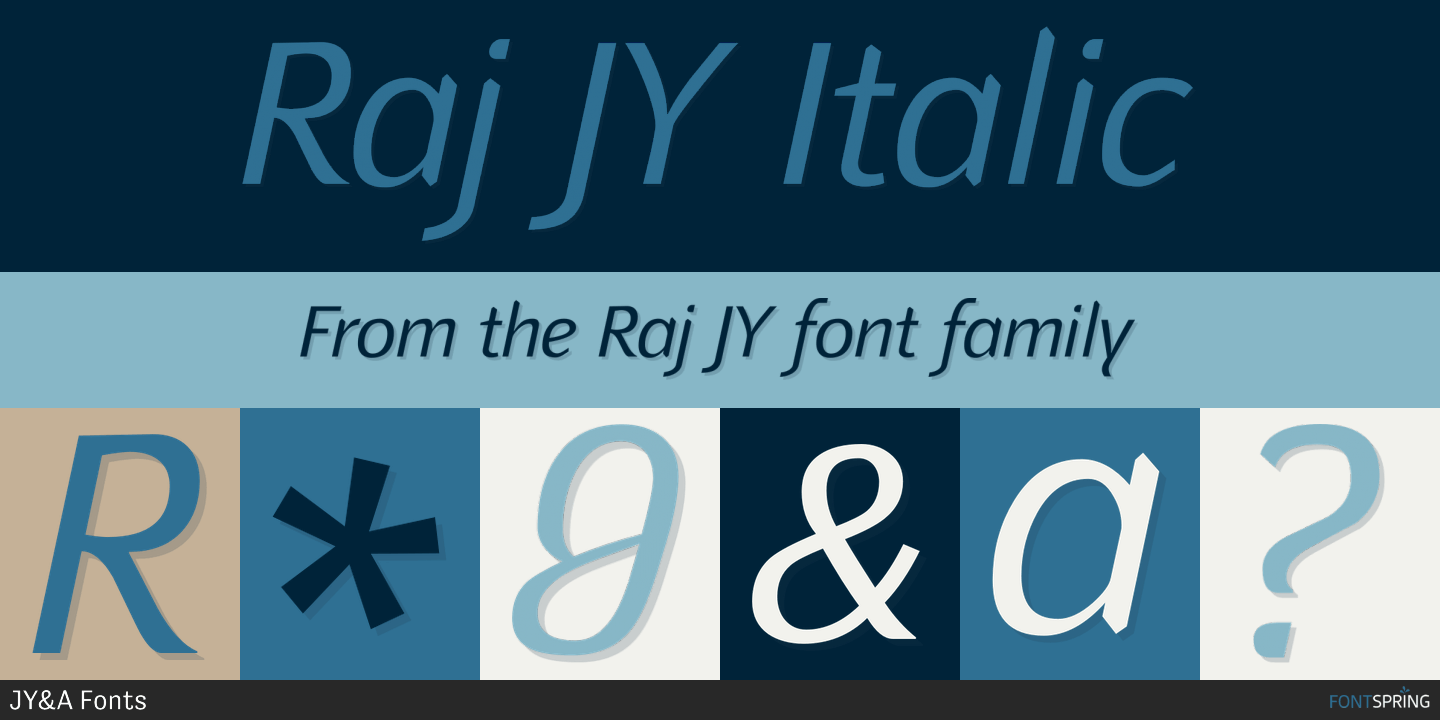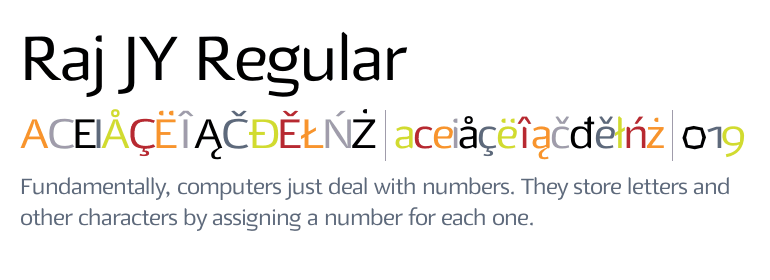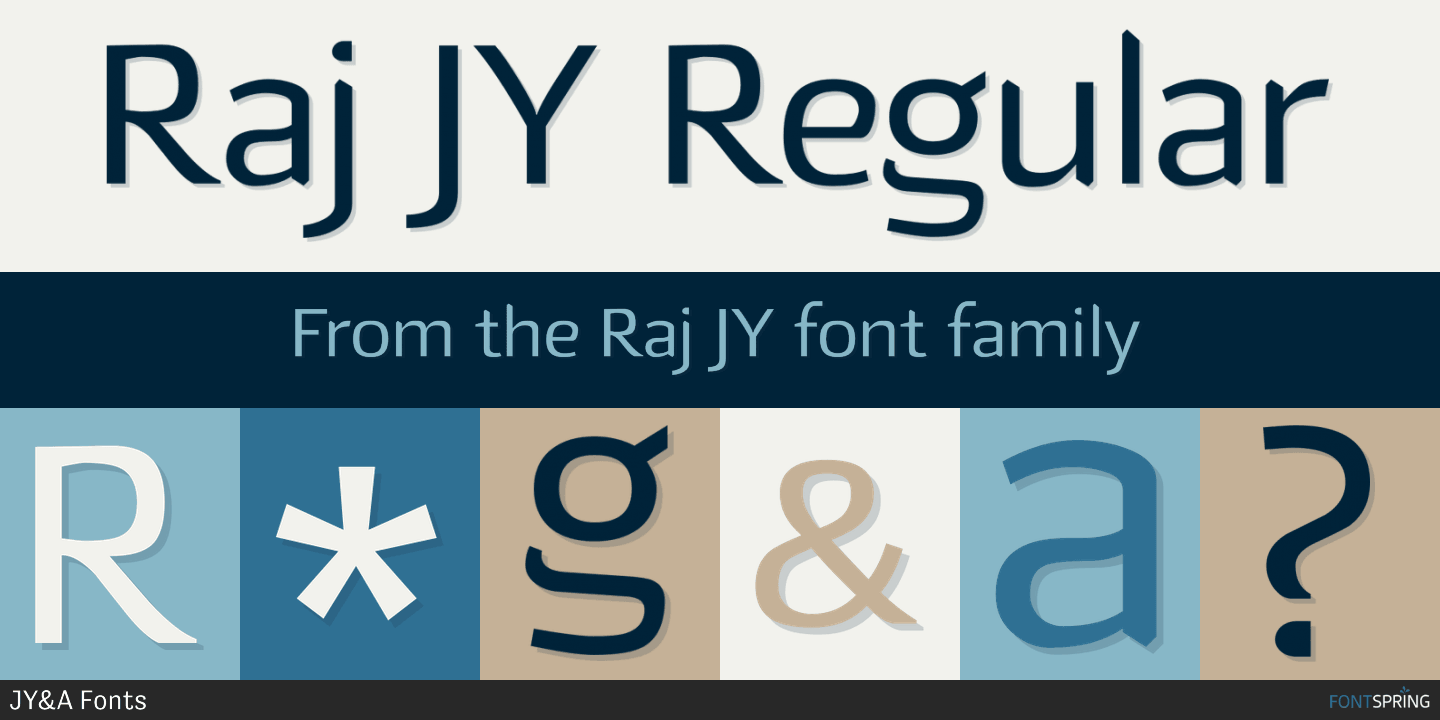
JY Raj
About JY Raj
JY Raj has had a lengthy gestation. The original one was a sans serif adaptation of a slab serif typeface design by Jure Stojan. Raj looked instantly better as a sans serif. After refining it further one lengthy night in 2001, he showed the drafts to…